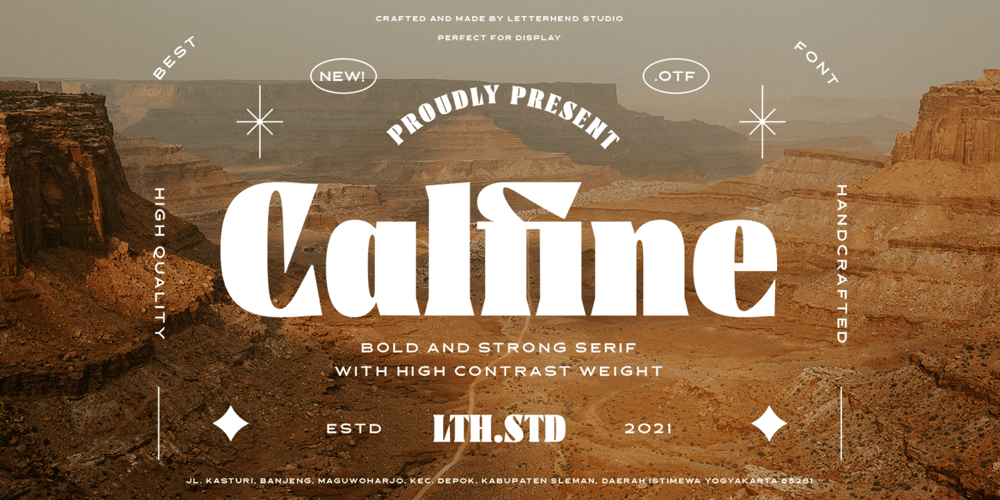
Calfine Font Family was designed by Hendry Juanda and published by Letterhend. Calfine contains 2 styles and family package options. Introducing, Calfine, a Bold and strong serif with high contrast weight. This font very suitable to be used as a title or display, make it looks great and stands from the crowd. This font perfectly made to be applied especially in logo, and the other various formal forms such as invitations, labels, logos, magazines, books, greeting / wedding cards, packaging, fashion, make up, stationery, novels, labels or any type of advertising purpose.Features : uppercase & lowercase numbers and punctuation multilingual PUA encoded We highly recommend using a program that supports OpenType features and Glyphs panels like many of Adobe apps and Corel Draw, so you can see and access all Glyph variations.